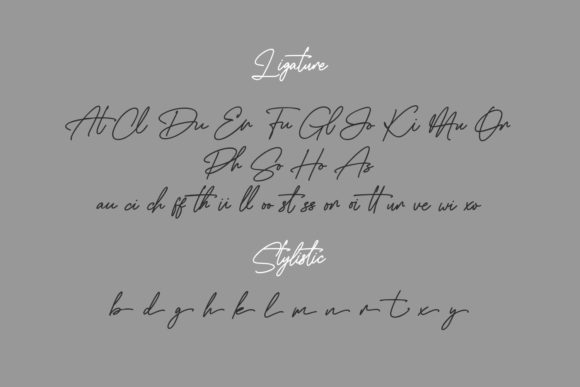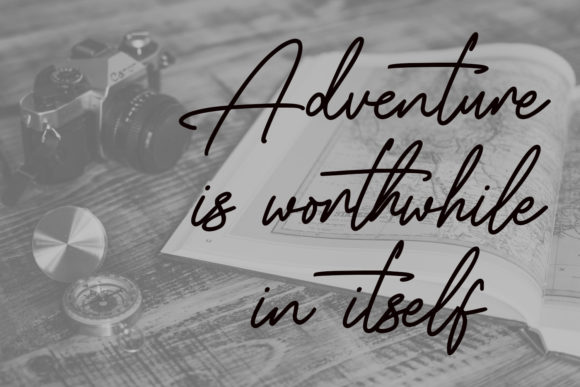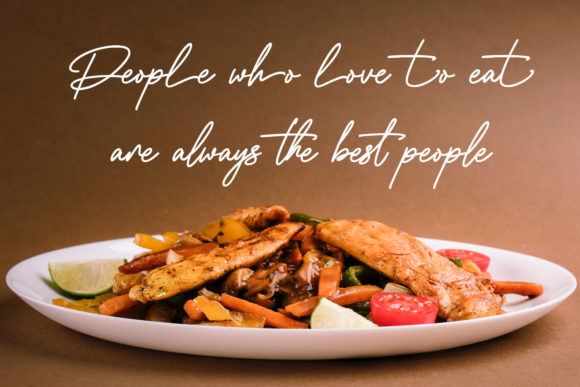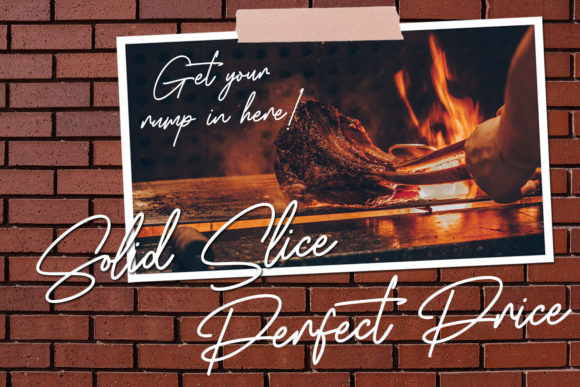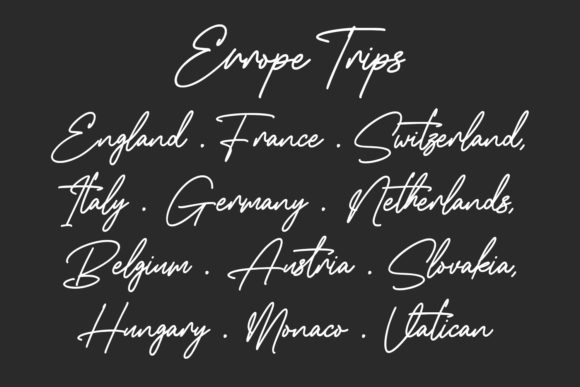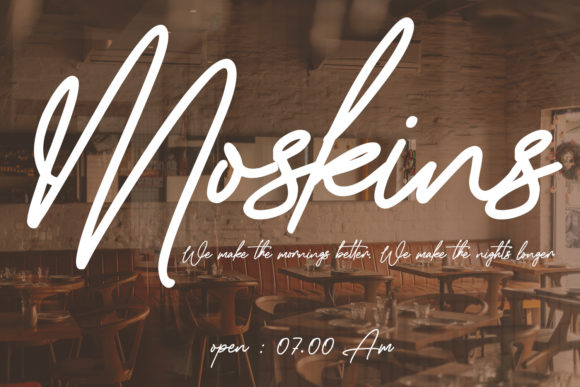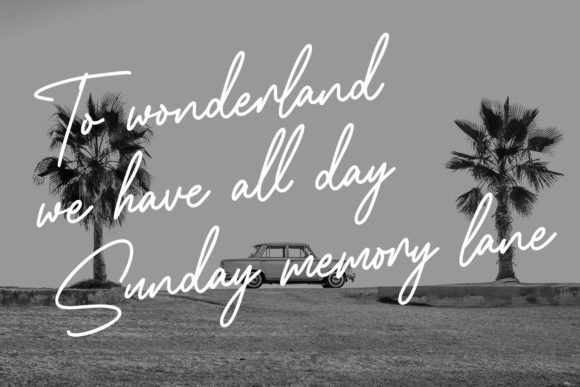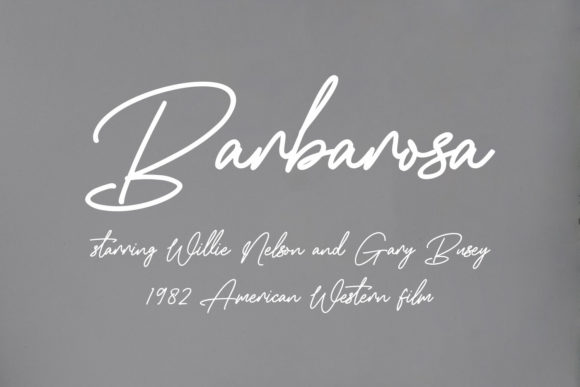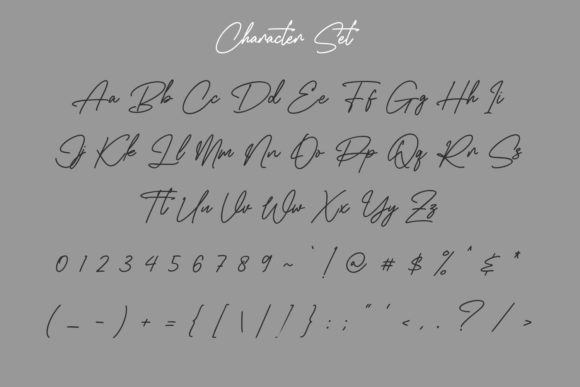
Munichly Script Font
About Munichly Script Font
Munichley Script is a captivating and expressive casual signature script font that brings a sense of personality and flair to your design projects. With its mono-line strokes, playful characters, and charming ligatures and alternates, this font adds a touch of uniqueness and creativity to any creative endeavor.
The distinctive feature of Munichley Script is its mono-line strokes, which lend a consistent thickness to each letter. This creates a clean and contemporary look, making the font suitable for a wide range of design styles. Whether you’re working on modern branding, casual invitations, or social media graphics, Munichley Script’s mono-line strokes contribute to a sleek and cohesive appearance.
The playful characters of Munichley Script inject a sense of fun and liveliness into your designs. The varied letterforms and engaging letter connections give the font a handwritten feel, adding a personal touch that resonates with audiences. This makes the font perfect for projects that require a sense of approachability and informality, such as casual invitations, personal branding, and social media posts.
Ligatures and alternates in Munichley Script provide a layer of customization and creativity. These extra characters allow you to experiment with different letter combinations and styles, enabling you to create truly unique and eye-catching designs. Whether you’re adding a special touch to a logo, enhancing the flow of a headline, or embellishing a quote, Munichley Script’s ligatures and alternates offer endless design possibilities.
The versatility of Munichley Script ensures that it shines in a variety of contexts. Its expressive nature makes it a standout choice for branding projects, adding a touch of playfulness and authenticity to logos, labels, and packaging. For casual invitations and greeting cards, the font’s friendly appearance makes recipients feel welcomed and valued.
In the world of digital and social media, Munichley Script stands out as a font that captures attention and fosters engagement. Its expressive strokes and charming letterforms make it an ideal choice for captions, quotes, and posts that seek to create a memorable impact on viewers.
Munichley Script’s ability to seamlessly blend contemporary mono-line strokes with expressive and playful elements is what sets it apart. This unique combination allows the font to excel in both formal and informal design contexts, making it a versatile and valuable addition to your font library. Whether you’re working on branding, invitations, social media graphics, or any other design project, Munichley Script’s extraordinary appeal is sure to leave a lasting impression.